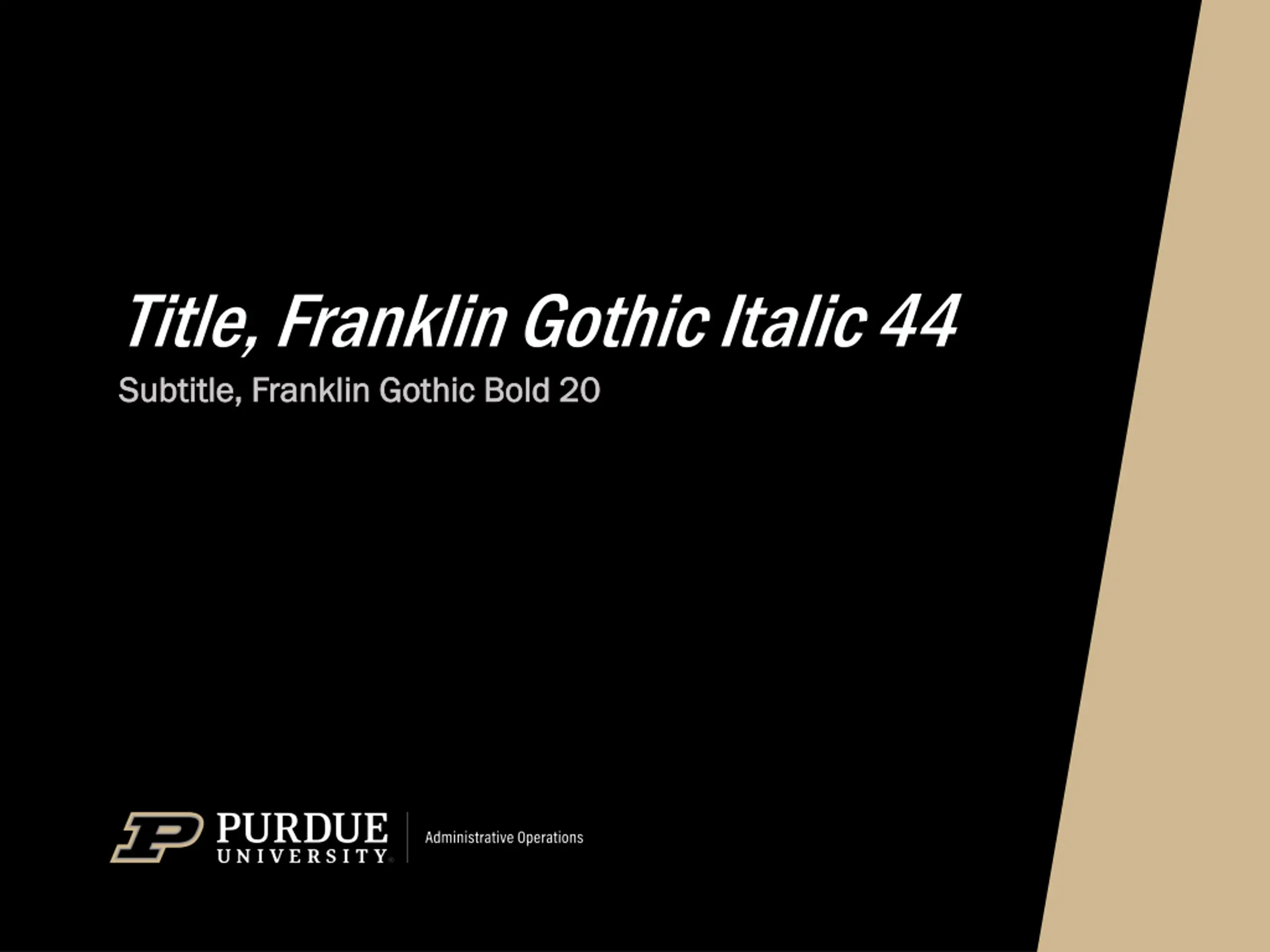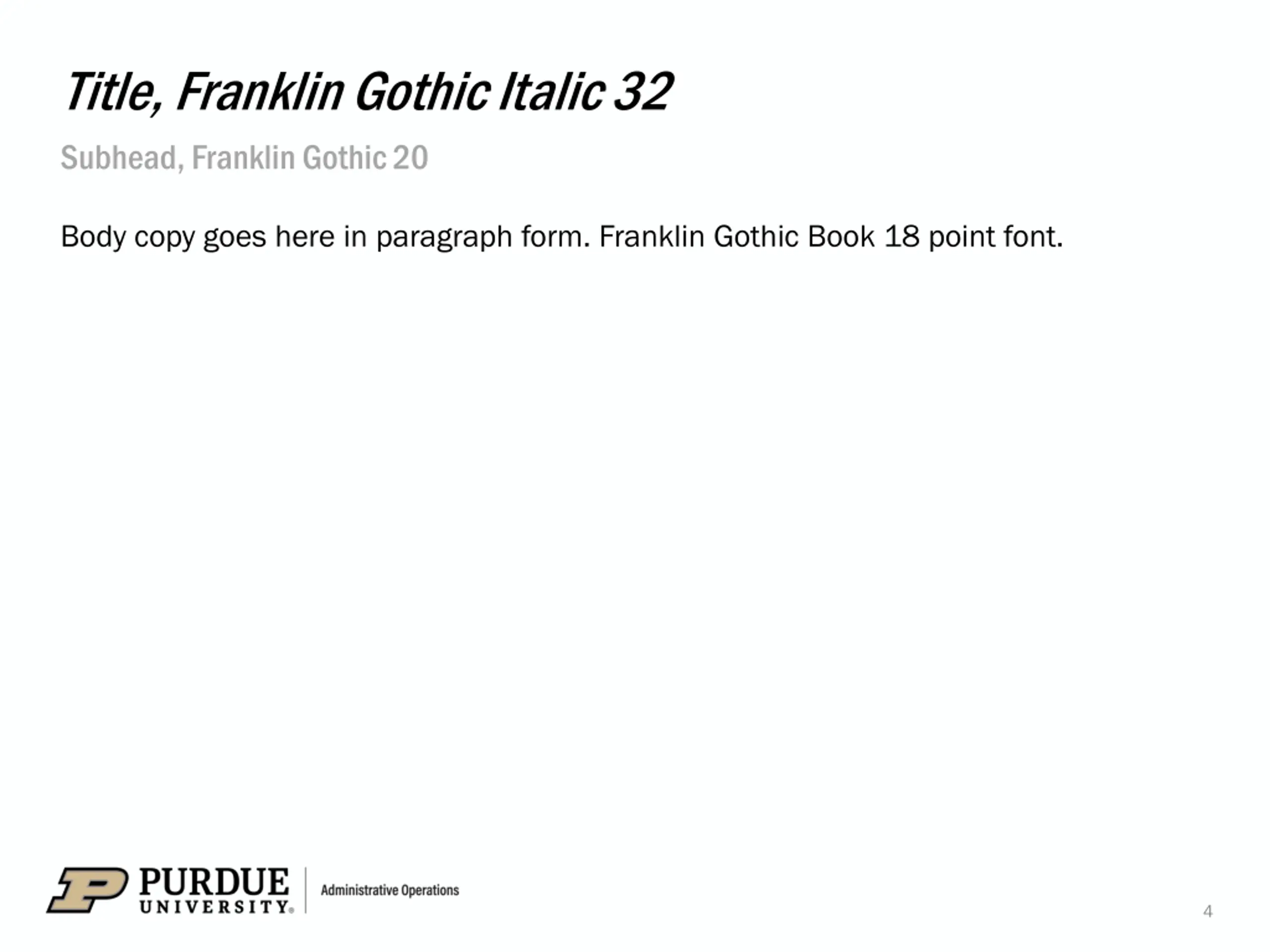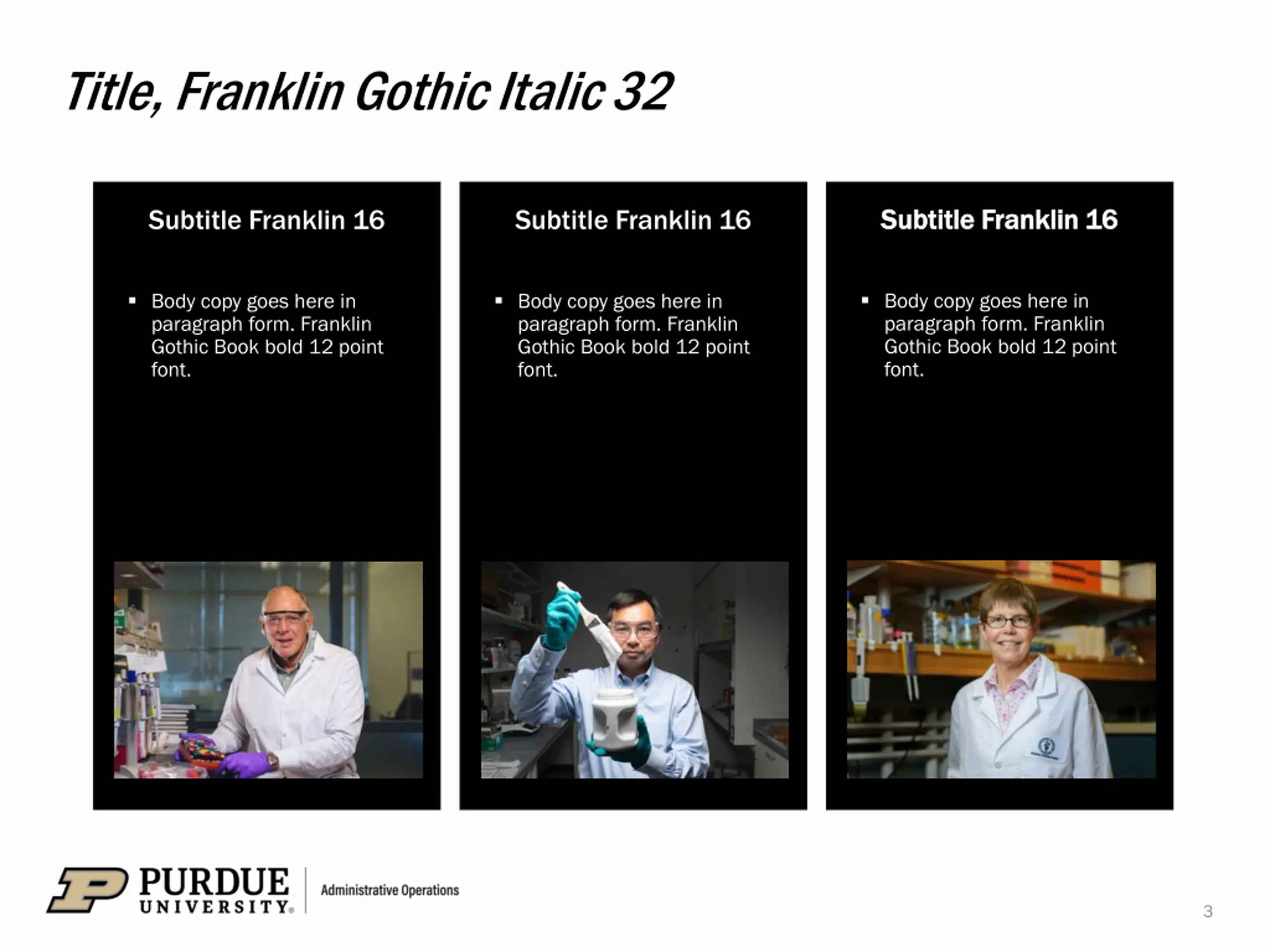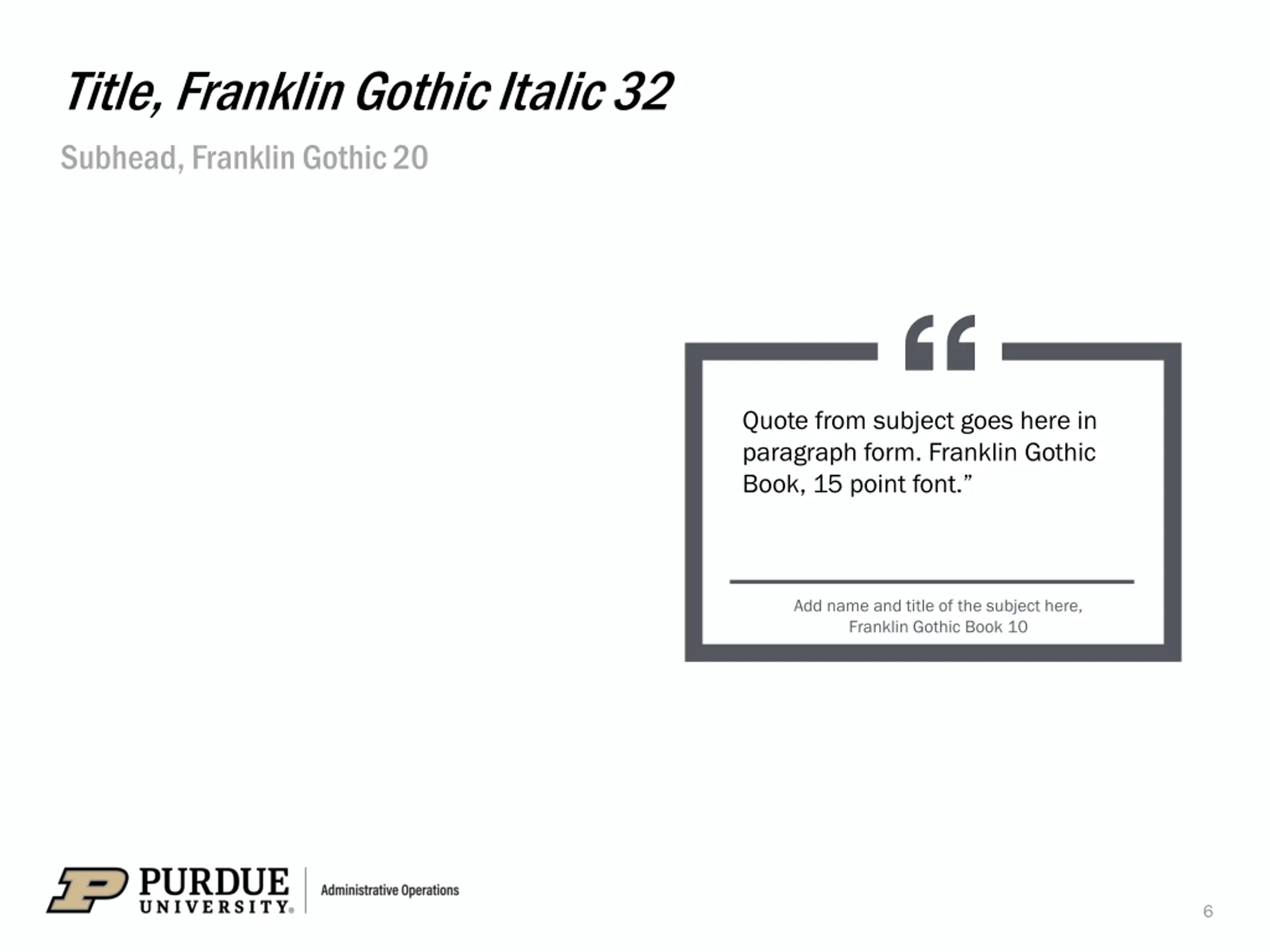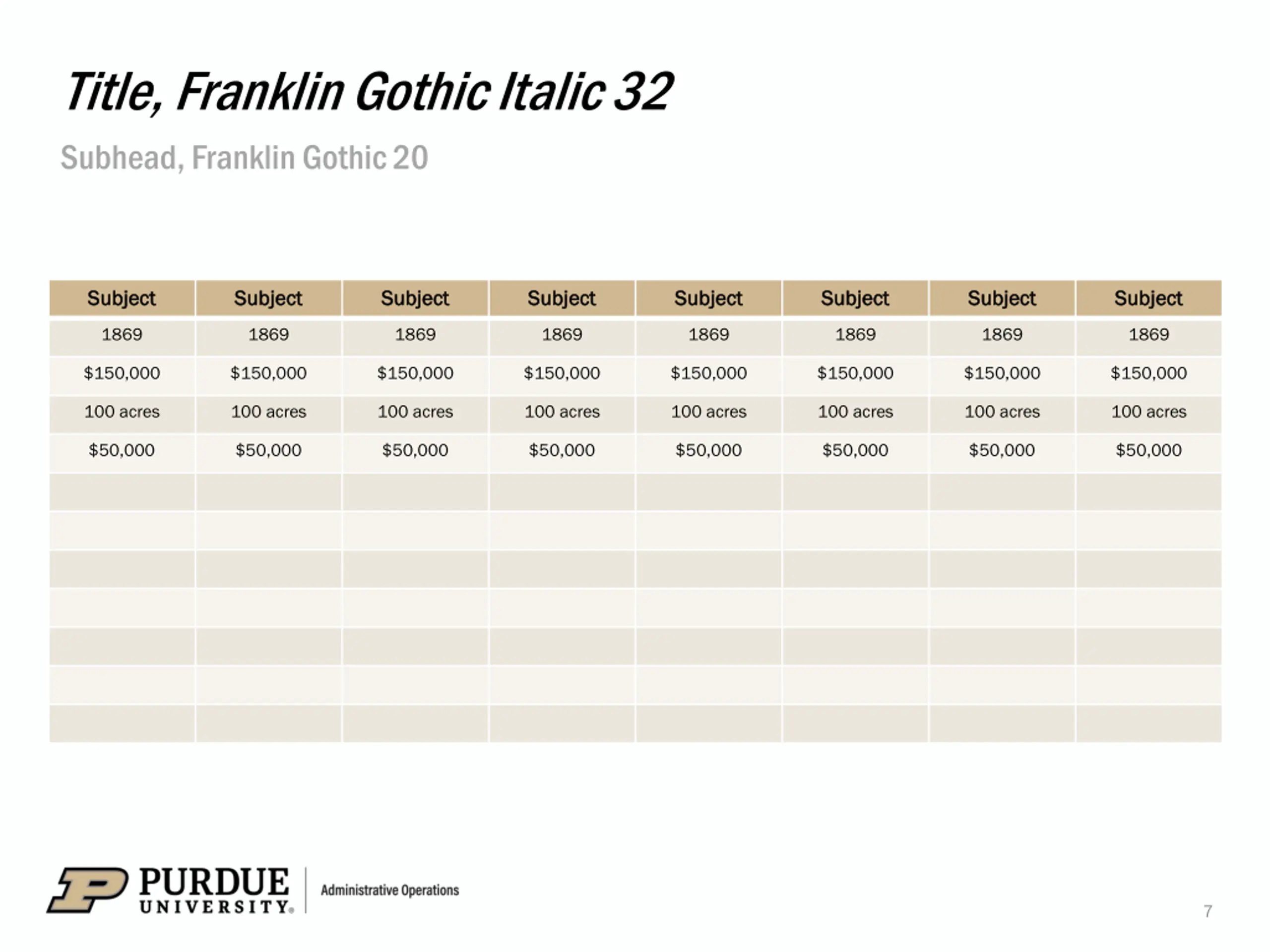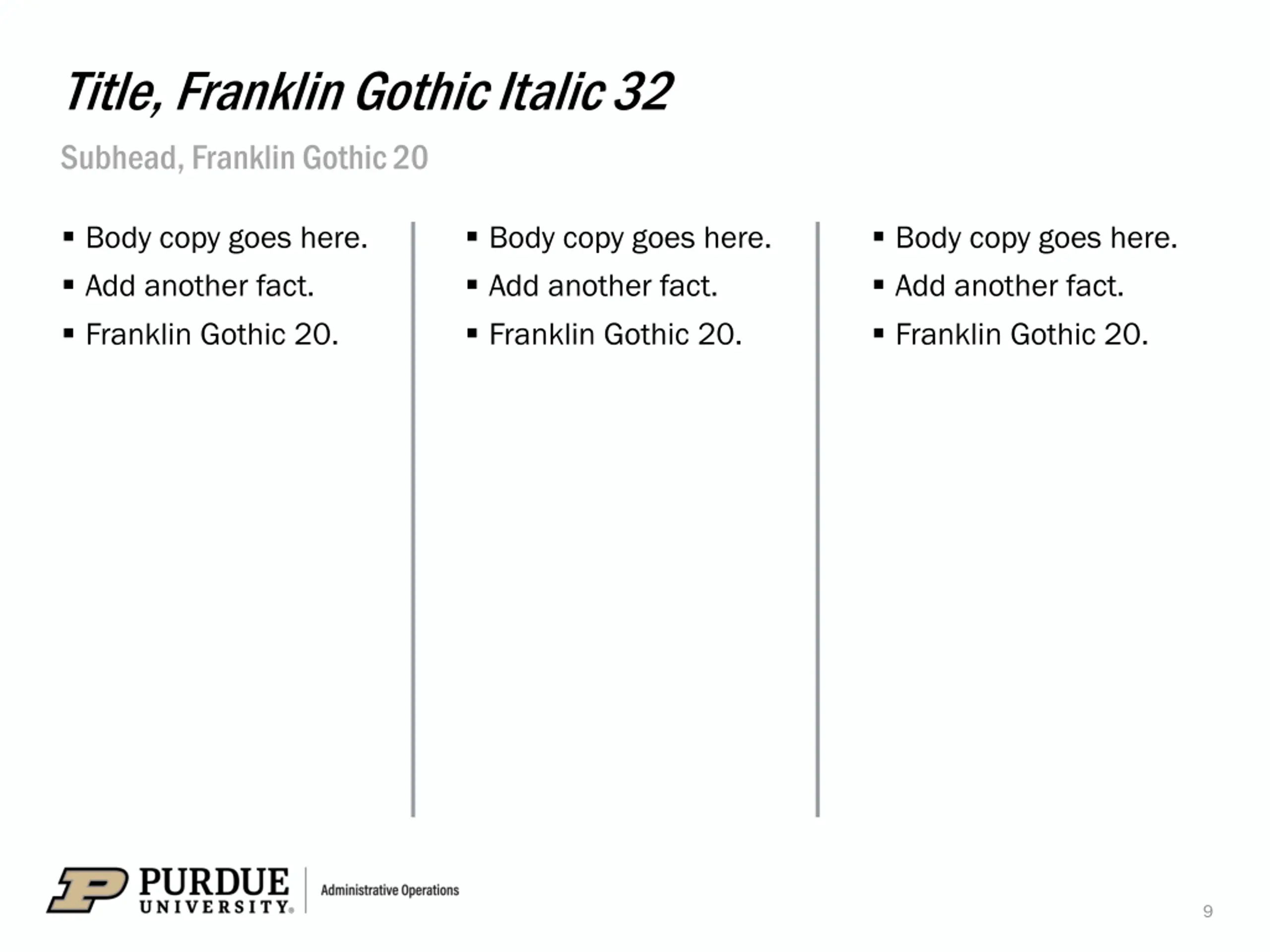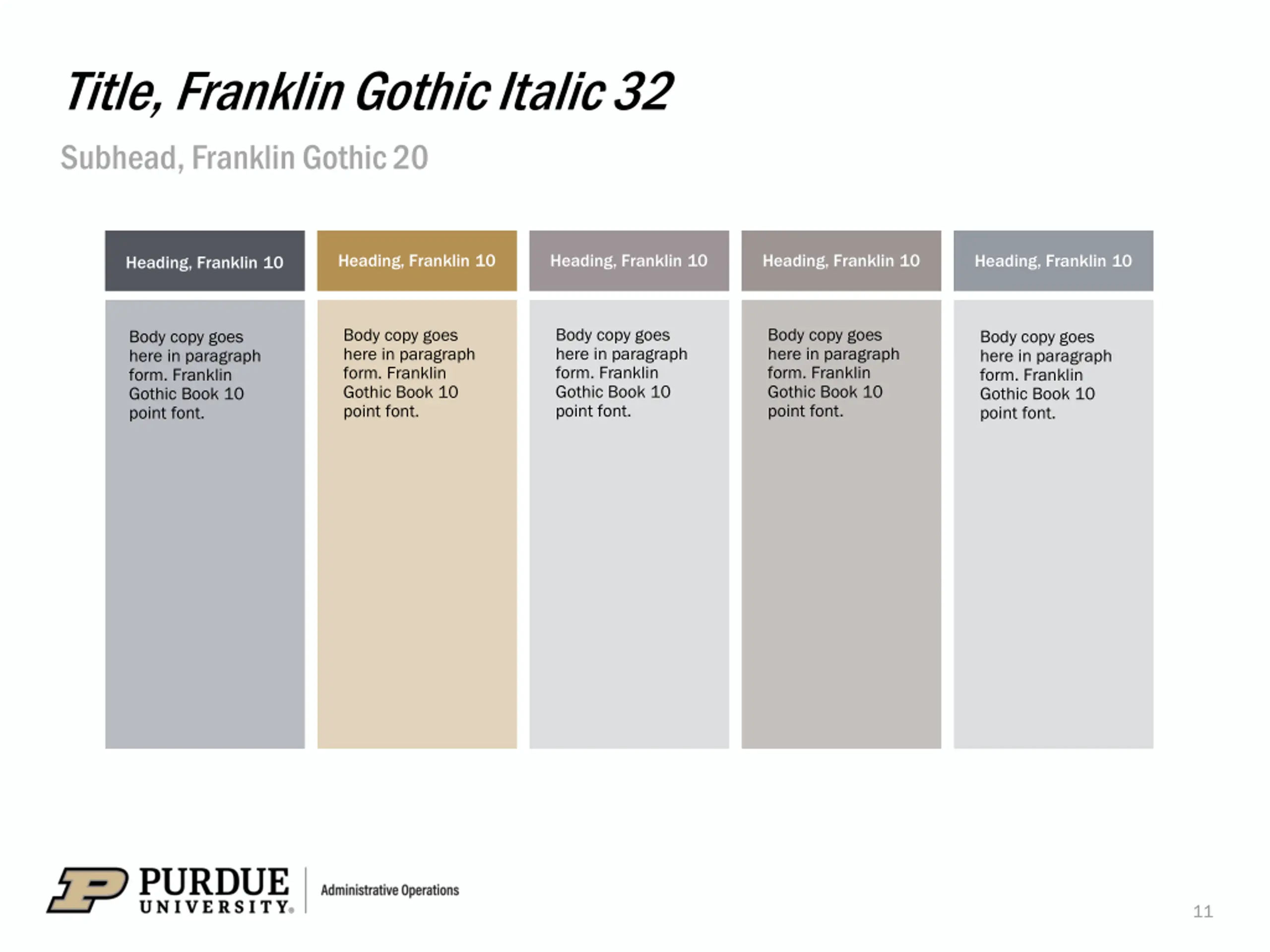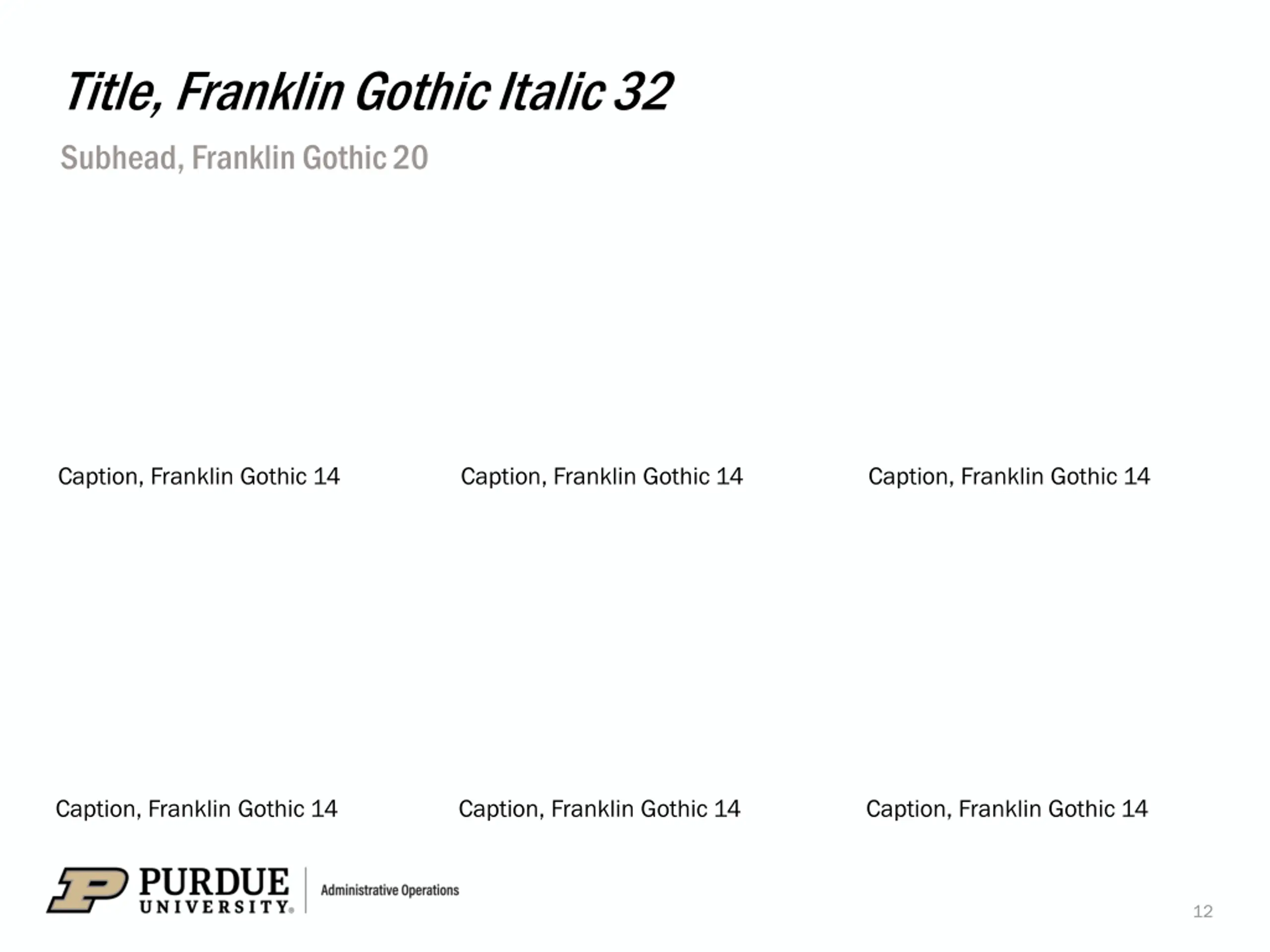
Creative Design Showcase with Franklin Gothic Fonts
Explore a visually appealing design showcase featuring various typography styles using Franklin Gothic fonts. From bold titles to elegant italics, experience the versatility of this classic font family in modern compositions. Dive into the world of typography and design inspiration with Franklin Gothic.
Title, Franklin Gothic Italic 44 Subtitle, Franklin Gothic Bold 20 Subtitle, Franklin Gothic Bold 20
Title, Franklin Gothic Italic 32 Subtitle Franklin 16 Body copy goes here in paragraph form. Franklin Gothic Book bold 12 point font. Body copy goes here in paragraph form. Franklin Gothic Book bold 12 point font. Body copy goes here in paragraph form. Franklin Gothic Book bold 12 point font. 3
Title, Franklin Gothic Italic 32 Subhead, Franklin Gothic 20 Body copy goes here in paragraph form. Franklin Gothic Book 18 point font. 4
Title, Franklin Gothic Italic 32 Subhead, Franklin Gothic 20 Body copy goes here in paragraph form. Franklin Gothic Book 18 point font. Body copy goes here in paragraph form. Franklin Gothic Book 18 point font. Body copy goes here in paragraph form. Franklin Gothic Book 18 point font. 5
Title, Franklin Gothic Italic 32 Subhead, Franklin Gothic 20 Quote from subject goes here in paragraph form. Franklin Gothic Book, 15 point font. Add name and title of the subject here, Franklin Gothic Book 10 6
Title, Franklin Gothic Italic 32 Subhead, Franklin Gothic 20 Subject 1869 1869 1869 1869 1869 1869 1869 1869 $150,000 $150,000 $150,000 $150,000 $150,000 $150,000 $150,000 $150,000 100 acres 100 acres $50,000 $50,000 $50,000 $50,000 $50,000 $50,000 $50,000 $50,000 7
Title, Franklin Gothic Italic 32 Subhead, Franklin Gothic 20 Chart Title 6 5 4 3 2 1 0 Category 1 Category 2 Category 3 Category 4 Series 1 Series 2 Series 3 8
Title, Franklin Gothic Italic 32 Subhead, Franklin Gothic 20 Body copy goes here. Add another fact. Franklin Gothic 20. 9
Title, Franklin Gothic 32 Subtitle, Franklin Gothic 20 Heading Body copy goes here in paragraph form. Franklin Gothic Book 11 point font. Body copy goes here in paragraph form. Franklin Gothic Book 11 point font. Body copy goes here in paragraph form. Franklin Gothic Book 11 point font. Body copy goes here in paragraph form. Franklin Gothic Book 11 point font. Body copy goes here in paragraph form. Franklin Gothic Book 11 point font. 10
Title, Franklin Gothic Italic 32 Subhead, Franklin Gothic 20 Heading, Franklin 10 Body copy goes here in paragraph form. Franklin Gothic Book 10 point font. Body copy goes here in paragraph form. Franklin Gothic Book 10 point font. Body copy goes here in paragraph form. Franklin Gothic Book 10 point font. Body copy goes here in paragraph form. Franklin Gothic Book 10 point font. Body copy goes here in paragraph form. Franklin Gothic Book 10 point font. 11
Title, Franklin Gothic Italic 32 Subhead, Franklin Gothic 20 Caption, Franklin Gothic 14 12